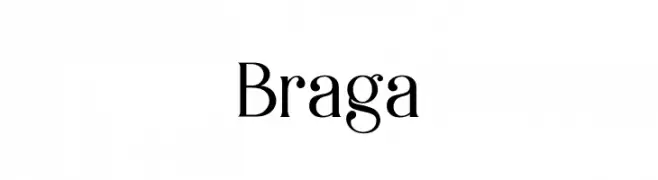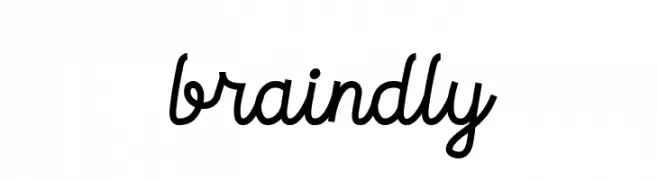
An elegant script font with flowing, cursive style and high contrast strokes.
A bold, modern font with strong, thick strokes and excellent readability.
A modern, clean sans-serif font with consistent stroke width and high legibility.
A modern, geometric sans-serif font with uniform stroke width and excellent legibility.
A bold, modern typeface with thick, uniform strokes and slightly condensed letterforms.
A bold, modern font with strong geometric shapes and a uniform appearance.
A bold, italicized font with a modern, energetic style.
A bold, geometric font with a modern and impactful style.
A bold, flowing script font with smooth, cursive strokes and dynamic movement.
A casual, flowing handwritten font with smooth, slanted letterforms.
A bold, rough, handwritten font with dynamic, textured strokes.
A casual, handwritten font with a rough texture and slanted style.
A clean, modern sans-serif font with balanced proportions and excellent readability.
A bold, modern sans-serif font with excellent legibility and balance.
A bold serif typeface with strong vertical strokes and classic appeal.
A bold, italicized font with strong strokes and a modern appeal.
A bold, inline font with a blend of classic and modern elements.
A refined serif font with a classic yet modern aesthetic.
A refined, light, and italic serif font with a modern and elegant style.
A modern serif font with clean lines and balanced proportions.
A classic serif font with medium weight and elegant italics.
A classic serif font with elegant strokes and balanced proportions.
A bold serif font with thick strokes and classic elegance.
A bold, classic serif typeface with strong, authoritative strokes.
A bold, italic serif font with a classic and elegant style.